Mardi Gras Fonts bring New Orleans energy to your designs – from bold, harlequin displays to jazzy serifs and swashy scripts. Below you’ll find pairing recipes, color tips, cut-friendly picks and quick searches for invitations, posters, banners and Cricut/Silhouette projects.
What Makes a “Mardi Gras” Font?
- Playful display energy: chunky, high-contrast letterforms, jester-style curves, diamond/harlequin cues, bead-like dots.
- Jazz club heritage: slab or wedge serifs, vintage wood-type textures, brass-band poster feels.
- Parade flourish: swashy scripts and hand-lettered brush styles that feel celebratory and loud.
- Pattern-friendly glyphs: alternates with stars, confetti, masks, crowns, or split-color inlines.
- Cutting-machine friendly options: clean paths, solid fills, layered/outline variants for easy vinyl or cardstock cutting.
- Harlequin diamond display → graphic, carnival-style block faces with diamond inlines and theatrical personality – perfect for big parade headlines.
- Jester & circus fonts → whimsical, bouncy letters with playful terminals for tickets, bunting, and kid-friendly printables.
- Jazz poster serifs → vintage concert-poster vibes with chunky serifs and rhythm – great for menus, flyers, and NOLA-themed signs.
- Festive brush scripts → energetic, swashy handwriting to balance bold displays on invitations and RSVPs.
- Layered & shadow fonts → 2–4 layer stacks (base, inline, shadow, highlight) for depth and easy color mixing in purple/green/gold.
- Stencil parade fonts → bold, readable letters for signage, foam boards, and outdoor posters that need quick weeding.
- Retro New Orleans → heritage-inspired typography with French Quarter charm for programs, maps, and décor cards.
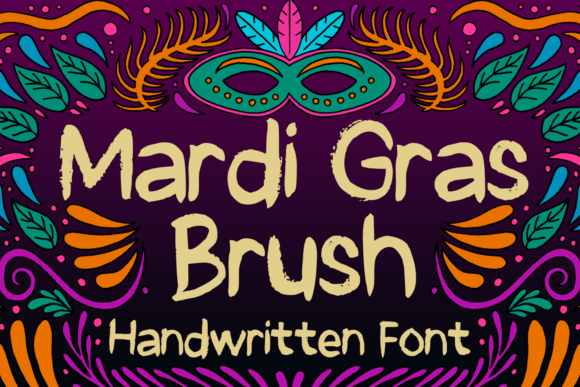
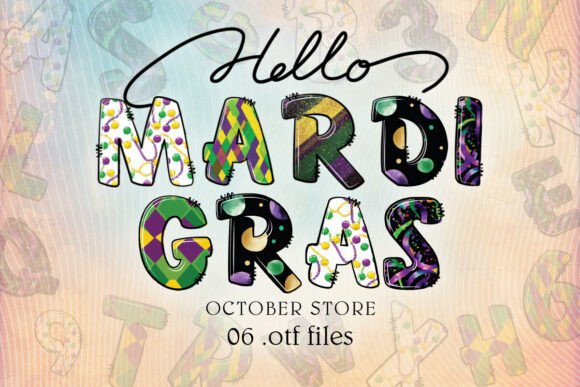
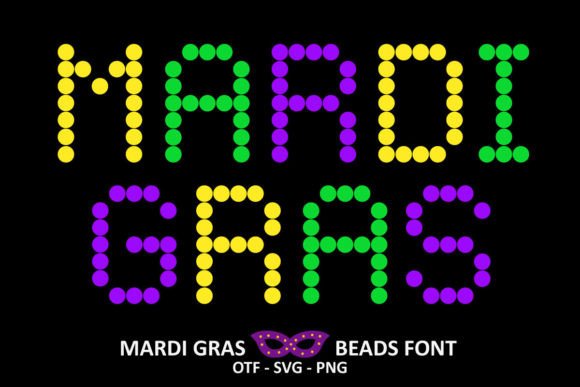
Font Pairing Recipes
Parade Poster
Headline: Harlequin/diamond display
Subhead: Jazz poster serif (small caps)
Body: Grotesque sans (tight leading)
Why it works: Strong geometric headline + heritage serif rhythm reads loud from a distance.
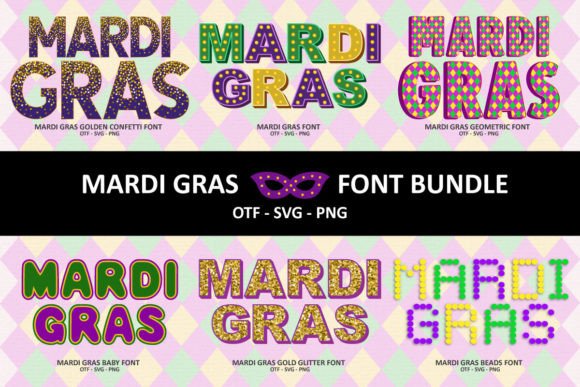
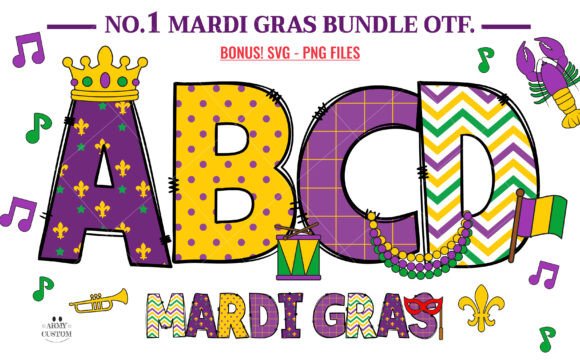
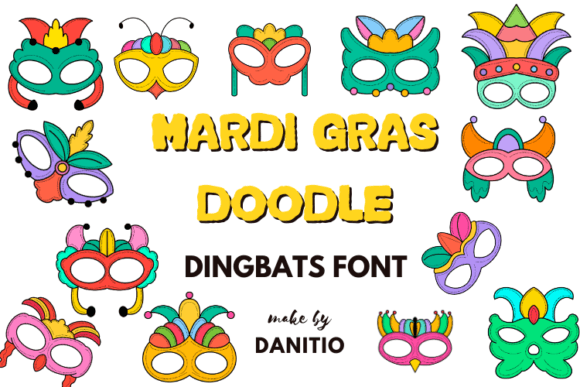
Invitation Suite
Names: Swashy brush script
Details: Clean humanist serif
Accents: Thin inline caps for time/place
Why it works: Script adds celebration; serif keeps it legible and elegant.
Banner & Garlands
Main: Layered 3D display (base + shadow + highlight)
Secondary: Stencil sans for dates
Why it works: Layering amplifies color play; stencil weeds fast on vinyl.
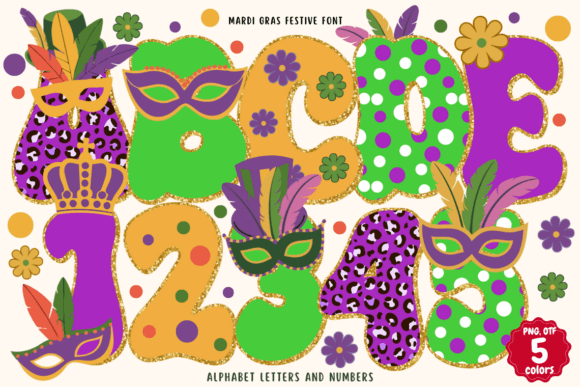
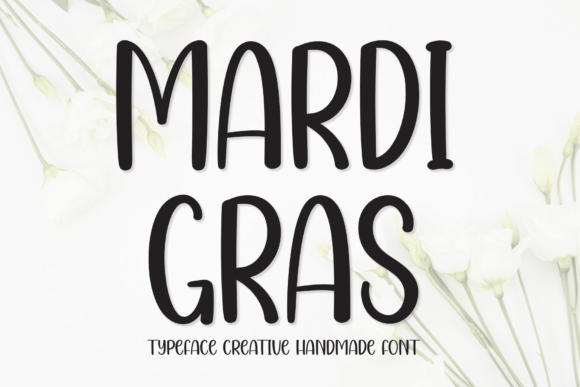
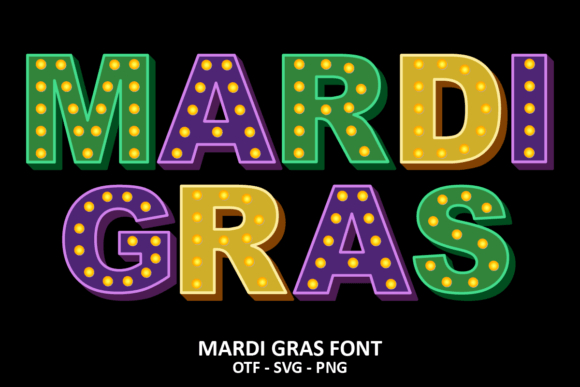
Menu & Table Cards
Section titles: Jazz serif (small caps)
Items: Neutral serif/sans
Price dots: Period leaders •••
Why it works: Nostalgic vibe with crisp readability at small sizes.
Project Ideas (Cricut, Silhouette & Print)
- Parade banners: layered display fonts with offset shadows for depth; use heavy cardstock or glitter vinyl.
- King cake toppers: glitter SVG alphabets; reinforce with acetate for rigid shapes.
- Mask party invites: brush script names + jazz serif details; add foil highlight to crowns or beads.
- Drink tickets & wristbands: stencil fonts for quick cutting and clear scanning points.
- Street-style posters: halftone textures behind bold diamonds; keep contrast high for legibility.
Color & Layout Tips
- Classic palette:
#6A0DAD(purple),#1E7F25(green),#D4AF37(gold). Use purple for type, green for accents, gold for highlights. - Layered type loves contrast: pick one dark base + one mid shadow + one metallic/bright highlight.
- Spacing: for chunky displays, tighten tracking (-10% to -2%) and add generous line-height for stacked titles.
- Texture carefully: harlequin patterns or bead borders can frame the layout – keep the inner content clean.
- Cut-friendly settings: avoid hairline inlines below 1.5–2 mm; prefer solid fills or stacked layers for vinyl.
FAQ: Mardi Gras Fonts
Chunky display faces with harlequin or circus flavor, jazz-inspired serifs, and layered 3D styles work great for big, high-impact titles.